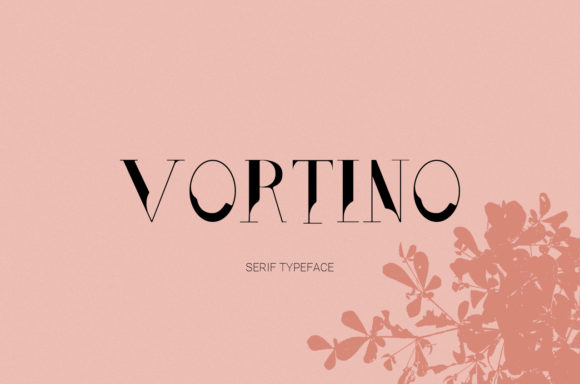
Introducing Vortino: The Font That Captivates and Commands Attention
In a world saturated with mundane and forgettable fonts, Vortino emerges as a beacon of distinction, an artistic masterpiece that breathes life into your designs. Prepare to be mesmerized by its unmatched elegance and versatility, as it transforms your creative visions into captivating realities.
Vortino's meticulously crafted characters possess an undeniable charm, exuding an aura of sophistication and exclusivity. Its bold and confident strokes command attention, while its graceful curves add a touch of playful allure. Whether you're crafting logos, branding masterpieces, or designing posters that leave a lasting impression, Vortino is your ultimate font companion.
Step into a realm of endless possibilities, where Vortino's versatility knows no bounds. Its adaptability shines in magazines, brochures, and countless other mediums, effortlessly adapting to your unique design aesthetic. With Vortino by your side, your creative horizons expand, unlocking a world of captivating designs that leave audiences spellbound.
Experience the transformative power of Vortino as it elevates your designs to new heights of sophistication. Its ability to capture and hold attention is unparalleled, making it the perfect choice for creating logos that leave an indelible mark on your audience's minds. Branding campaigns take on a life of their own, as Vortino's distinct personality breathes life into your brand identity, making it instantly recognizable and unforgettable.
Vortino is more than just a font; it's an artistic expression that ignites the imagination and fuels creativity. Its alluring presence adds a touch of magic to posters, transforming them into captivating works of art that demand attention. Magazines adorned with Vortino's enchanting characters become immersive experiences, inviting readers to delve into a world of captivating stories and vibrant imagery.
With Vortino as your font of choice, you unlock a treasure trove of creative possibilities. Its versatility empowers you to craft designs that resonate with your audience, leaving a lasting impression that lingers long after they've encountered your work. Embrace the allure of Vortino and embark on a creative journey like no other, where your designs transcend the ordinary and become masterpieces that inspire and captivate.